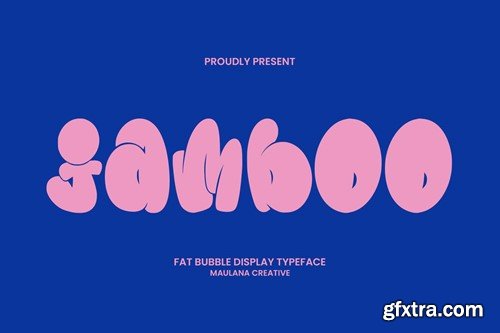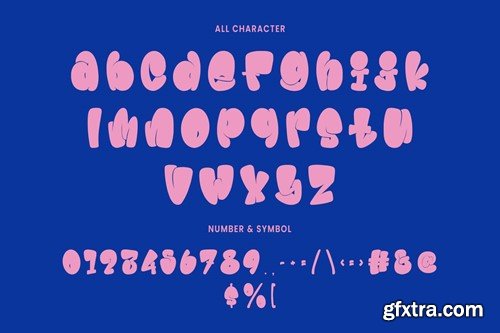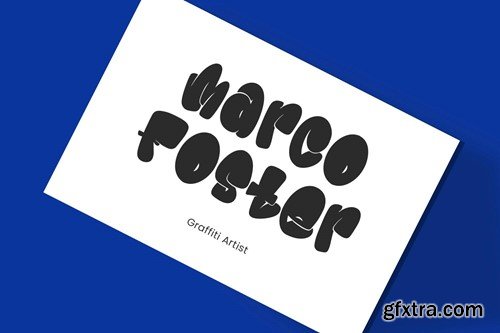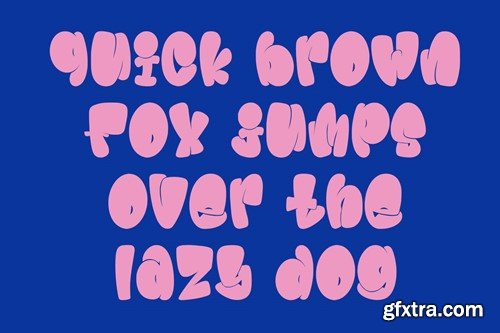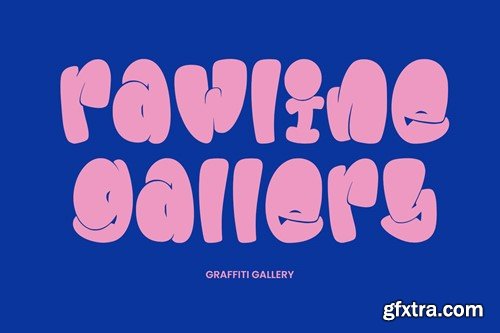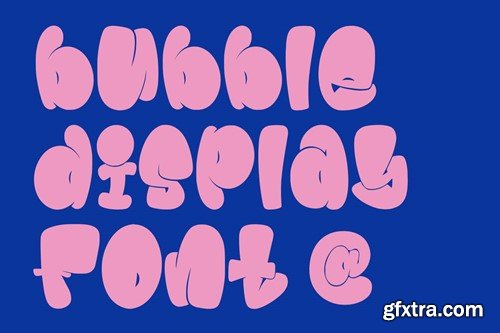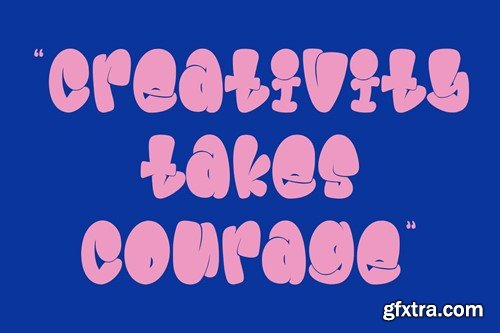
Jamboo Fat Bubble Display Font
Jamboo fat bubble display typeface font. With sharp bold stroke, fun character with a bit of ligatures and alternates. To give you an extra creative work. Jamboo fat bubble display typeface font support multilingual more than 100+ language. This font is good for logo design, Social media, Movie Titles, Books Titles, a short text even a long text letter and good for your secondary text font with script or serif. Make a stunning work with Jamboo fat bubble display typeface font. What you get: Cheers, Maulana Creative